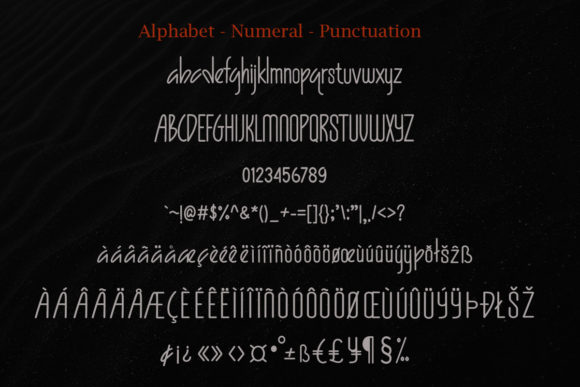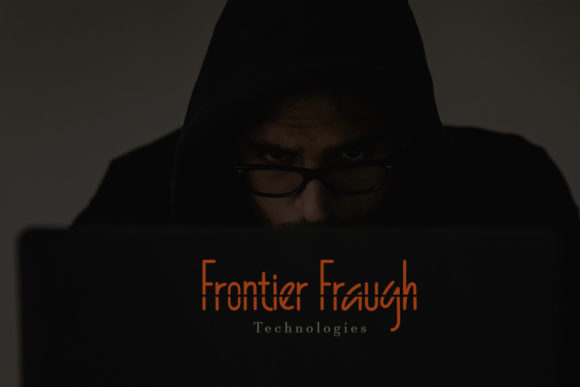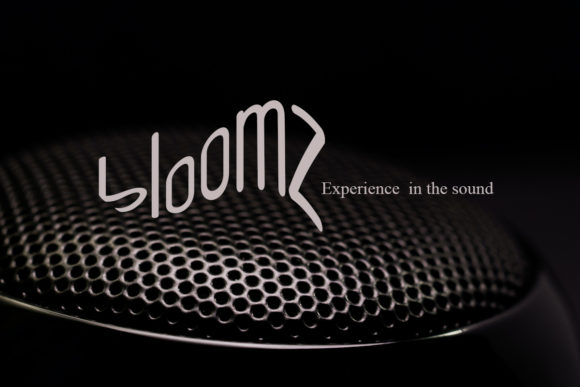
Introduction to Little Flamingo Font
Little Flamingo is a sleek and delicate sans serif font.
Masterfully designed to become a true favorite, this font has the potential to bring each of your creative ideas to the highest level .
Key Features of Little Flamingo Font
Why Choose Little Flamingo Font?
Little Flamingo Font offers exceptional quality and versatility, making it a valuable addition to your design toolkit. Whether you’re creating for personal projects or commercial use, Little Flamingo Font delivers professional results.